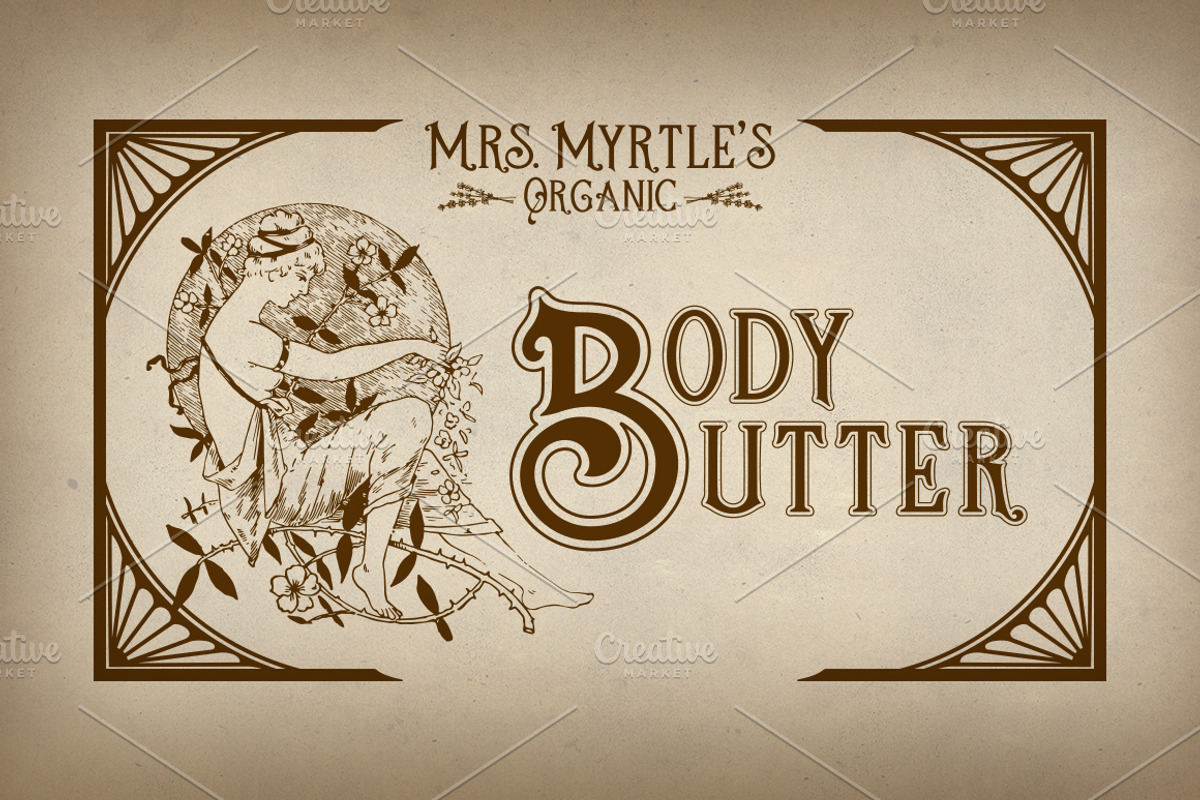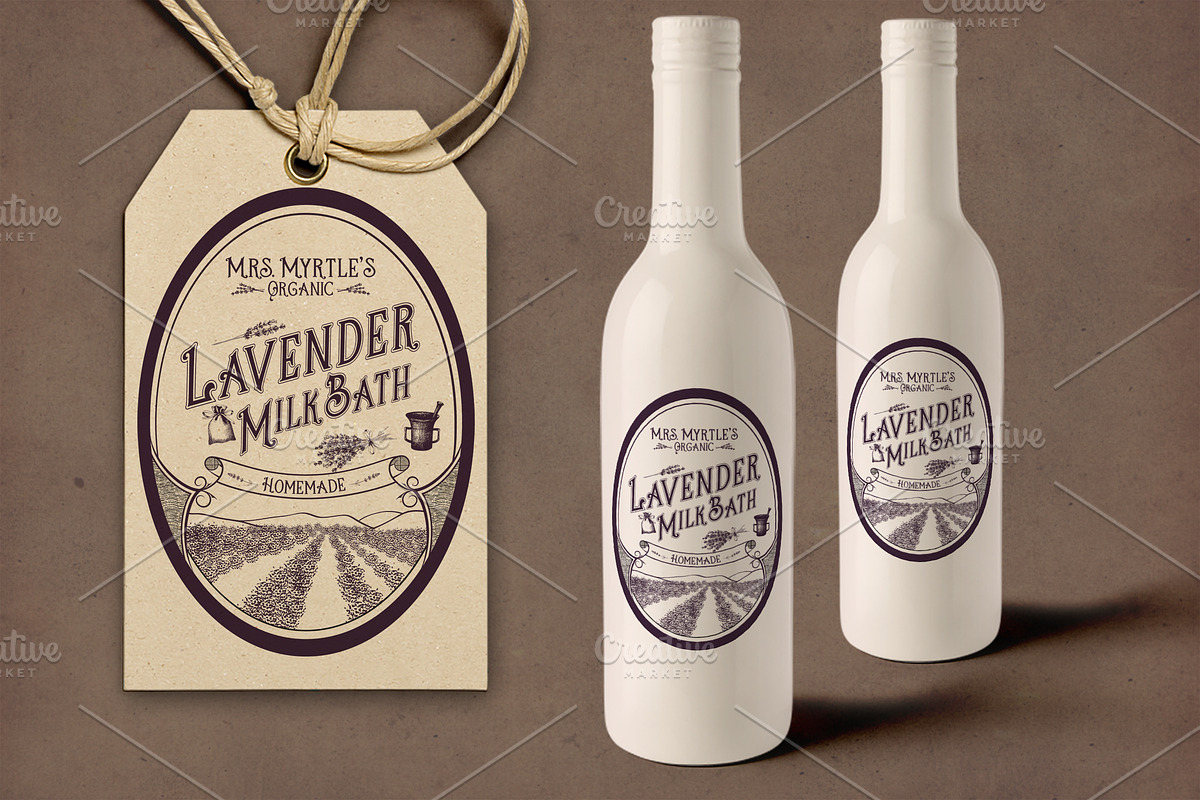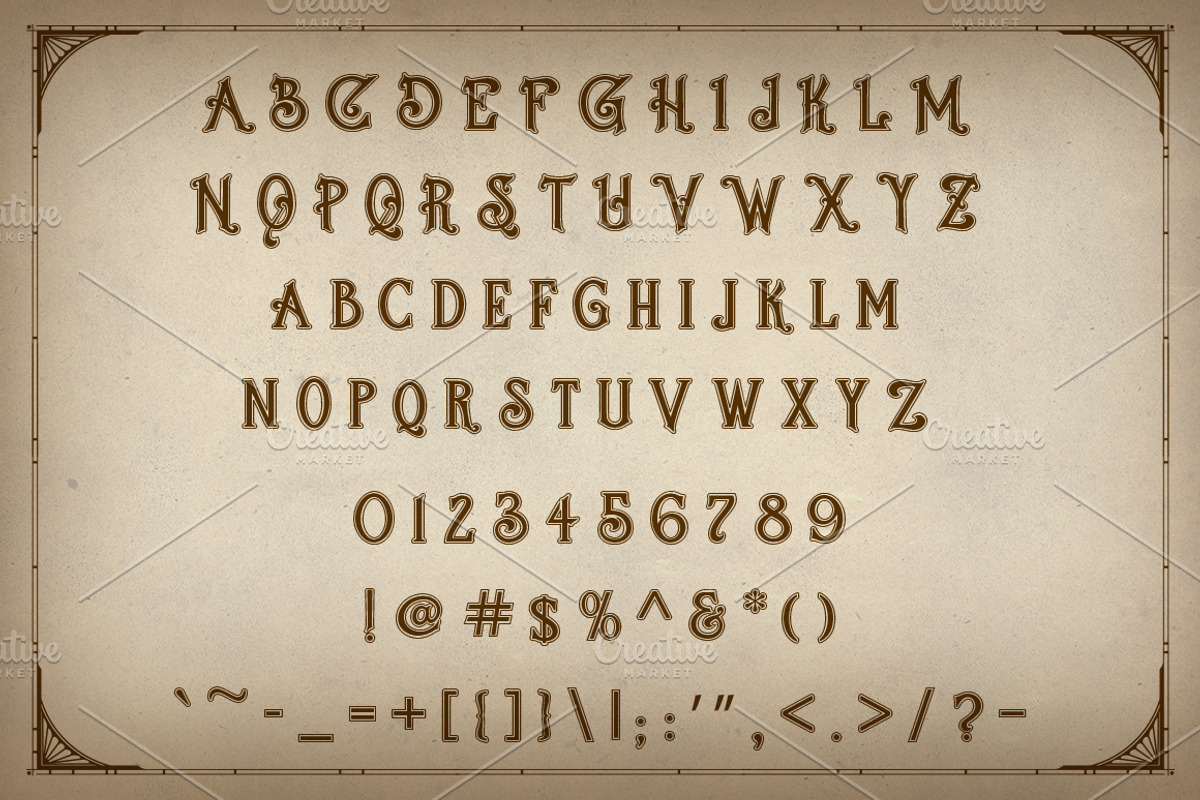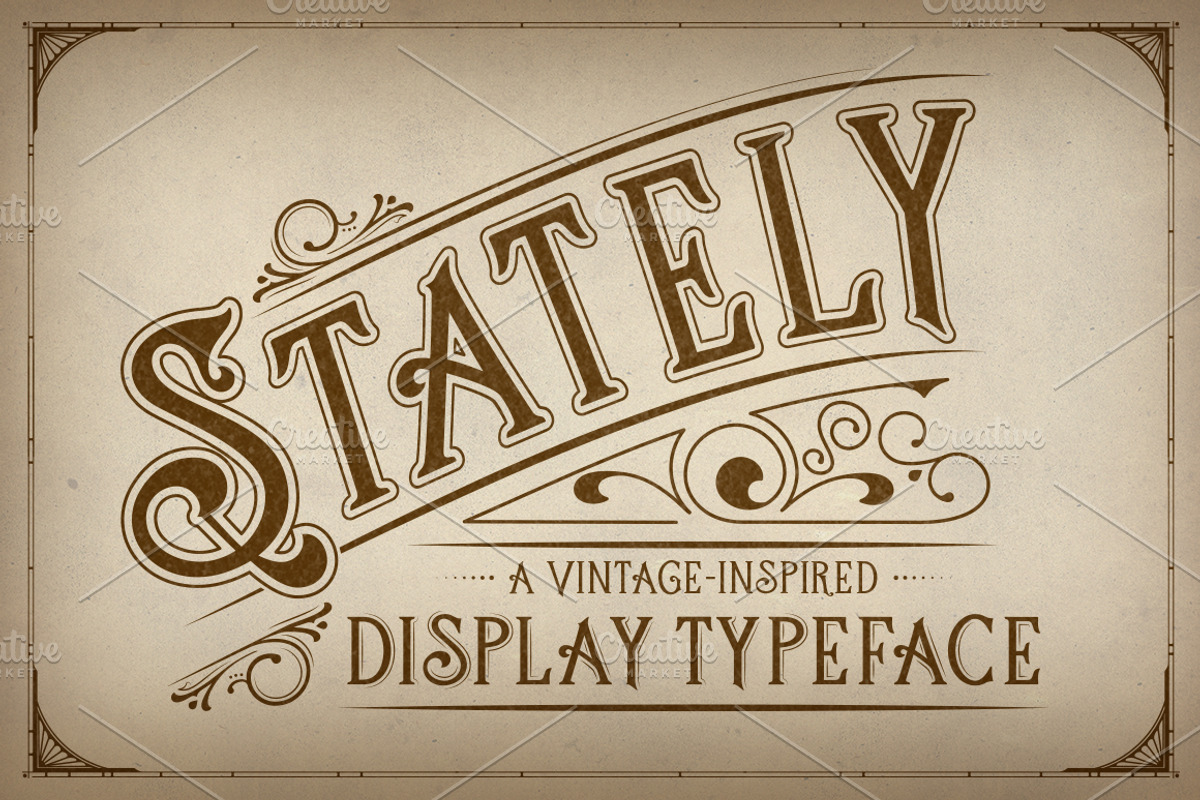
Stately Display Typeface
Stately Display Typeface by Dandylyon Designs is a font selected for branding, posters, packaging, typography.
- Stately Outline
- Statley Display
Why Stately Display Typeface is worth a look
Stately Display Typeface by Dandylyon Designs fits naturally into Branding, posters, packaging, typography.